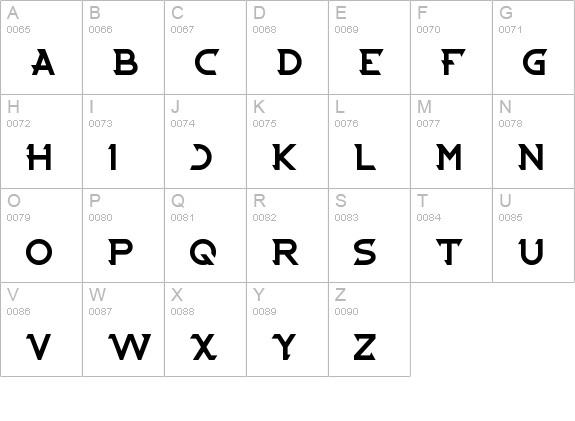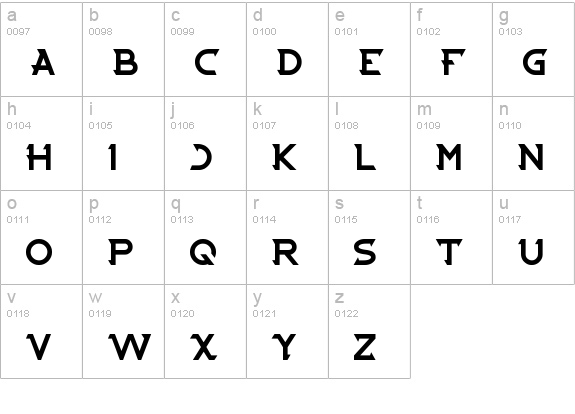
CYBERTOOTH Font Details
Introducing CYBERTOOTH, a cutting-edge and futuristic font that will electrify your designs. Embodying the spirit of technology and innovation, this font is perfect for projects that demand a bold and modern aesthetic. With its sleek and angular letterforms, CYBERTOOTH captures the essence of the digital era, making it an ideal choice for tech startups, gaming companies, and anyone looking to make a statement in the digital realm. Its clean lines and sharp edges give it a sense of precision and sophistication, while its unique flair adds a touch of excitement to any composition. But what sets CYBERTOOTH apart from other fonts is that it is not only visually stunning but also freely available to download at FontsMarket.com. Yes, that's right – this exceptional font can be yours at no cost. Whether you're a professional designer or a hobbyist, CYBERTOOTH allows you to elevate your work without breaking the bank. So, why wait? Take your design projects to new heights with CYBERTOOTH. Download it for free at FontsMarket.com and unleash your creativity today. Transform your typography into a bold statement that captures the essence of the digital age.